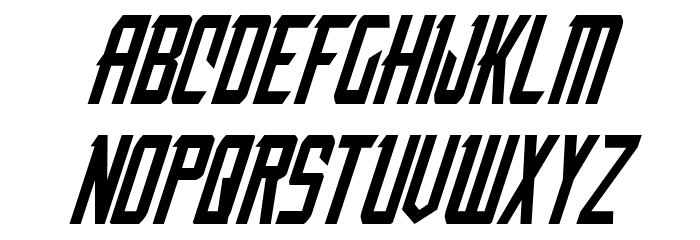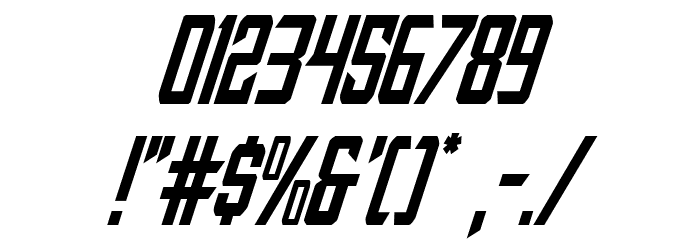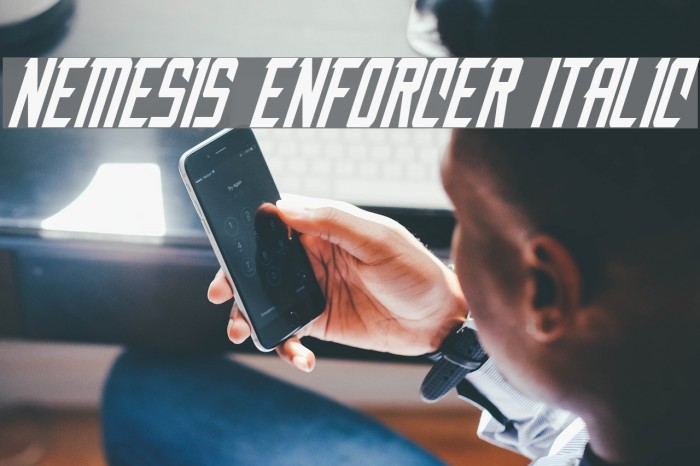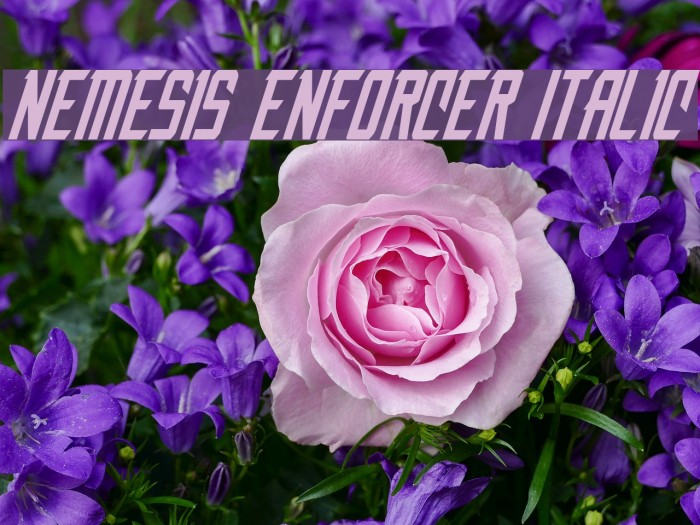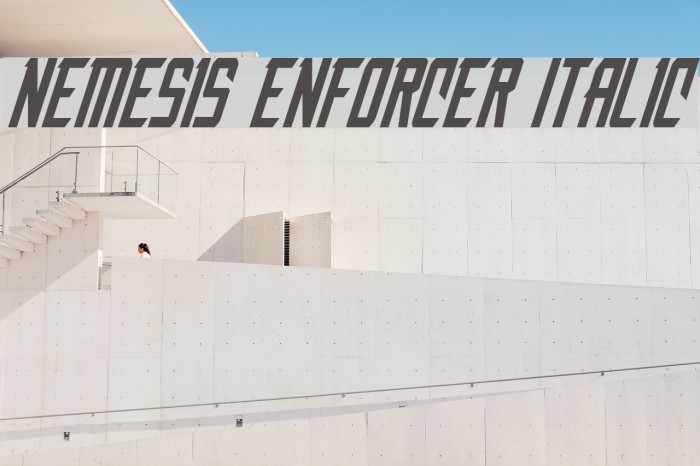
Nemesis Enforcer Italic Font
This font features a bold and dynamic style with a distinct italic slant, giving it a sense of motion and energy. The characters are sharply angular with a futuristic and aggressive appearance, making it ideal for projects that require a strong visual impact. The uppercase and lowercase letters maintain a consistent style, with tight character spacing that enhances its boldness. The numbers and special characters follow the same design principles, ensuring uniformity across all elements. Its high contrast in stroke thickness adds to its striking presence, making it suitable for attention-grabbing headlines and logos.
A bold, italic font with a dynamic, futuristic style and tight spacing.
- Proposed Projects: Ideal for sports branding, video game titles, action movie posters, and dynamic logo designs.
- Character Spacing: Tight
- Overall Style: Futuristic, Dynamic